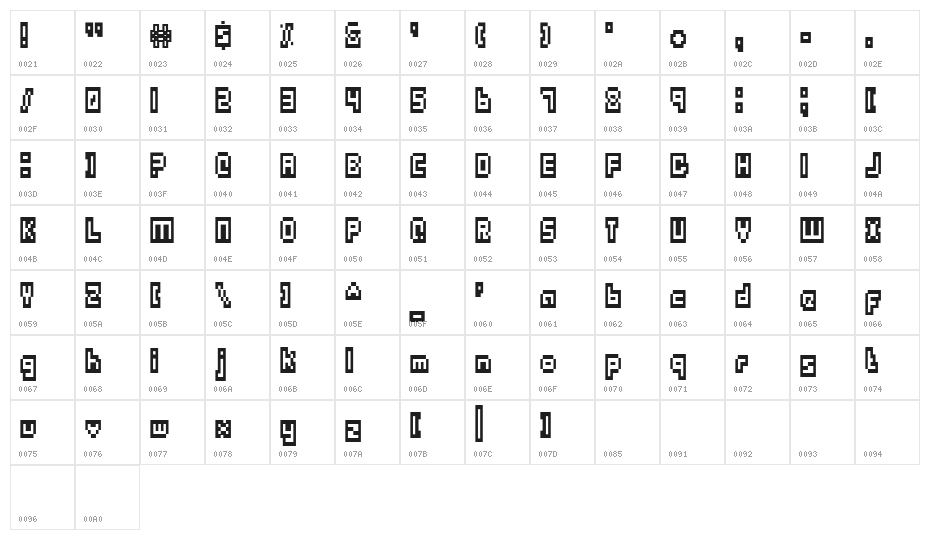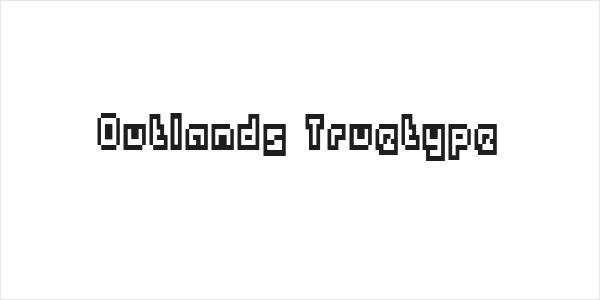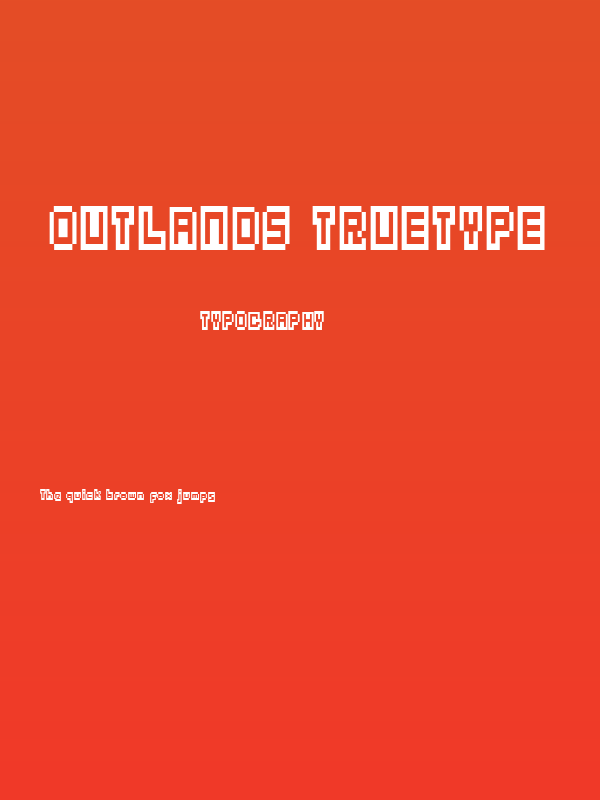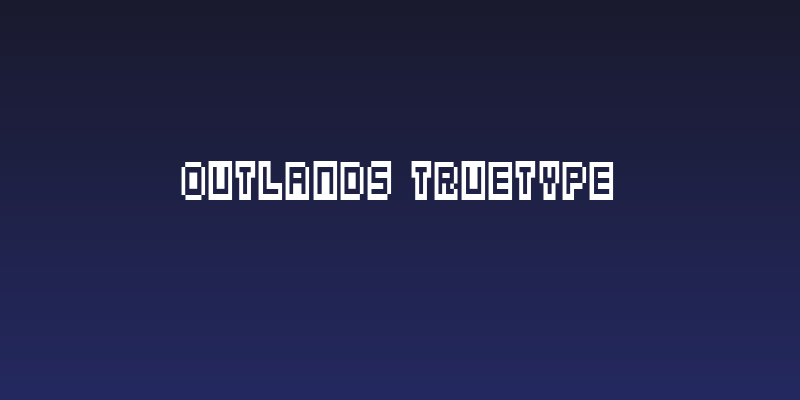
Outlands Truetype Font
Outlands Truetype Description
This font features a bold, geometric design with a pixelated, blocky appearance. Each character is constructed with thick, uniform strokes, creating a strong visual impact. The style is reminiscent of retro video games, with a digital, futuristic aesthetic. The uppercase and lowercase letters maintain a consistent height, contributing to a cohesive look. The numerals and special characters follow the same design principles, ensuring uniformity across all glyphs. This font is highly legible and distinct, making it suitable for attention-grabbing designs.
| Overall Style | Retro, Futuristic |
| Proposed Projects | Ideal for video game graphics, tech-themed posters, digital art, and retro-inspired branding. |